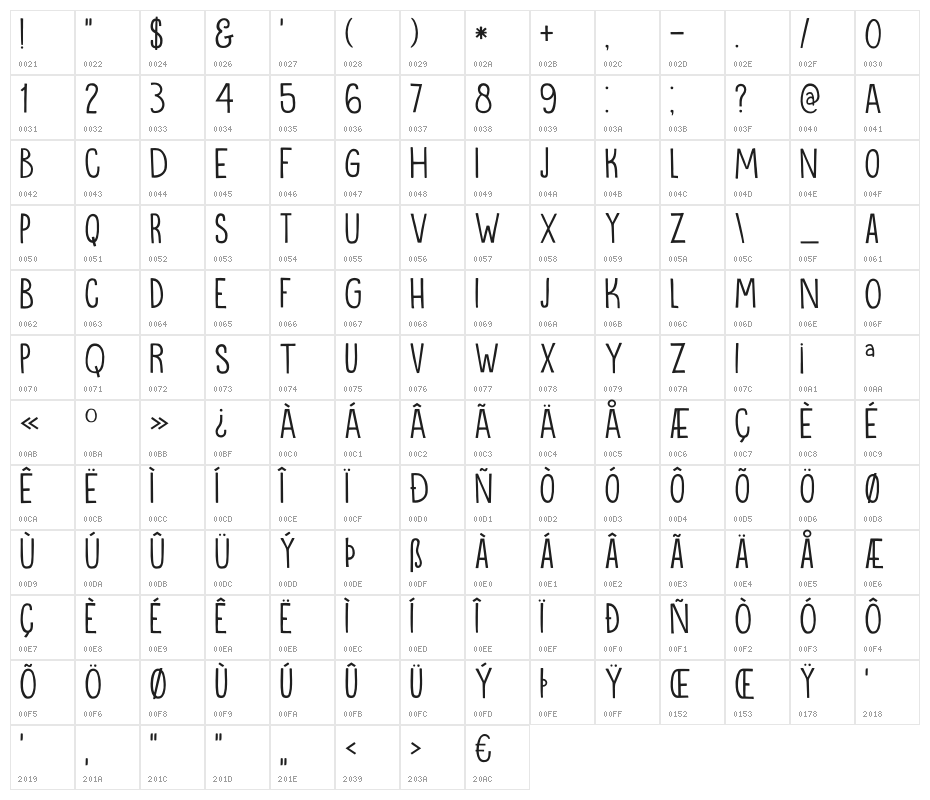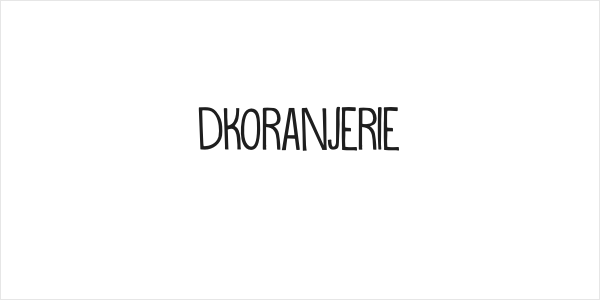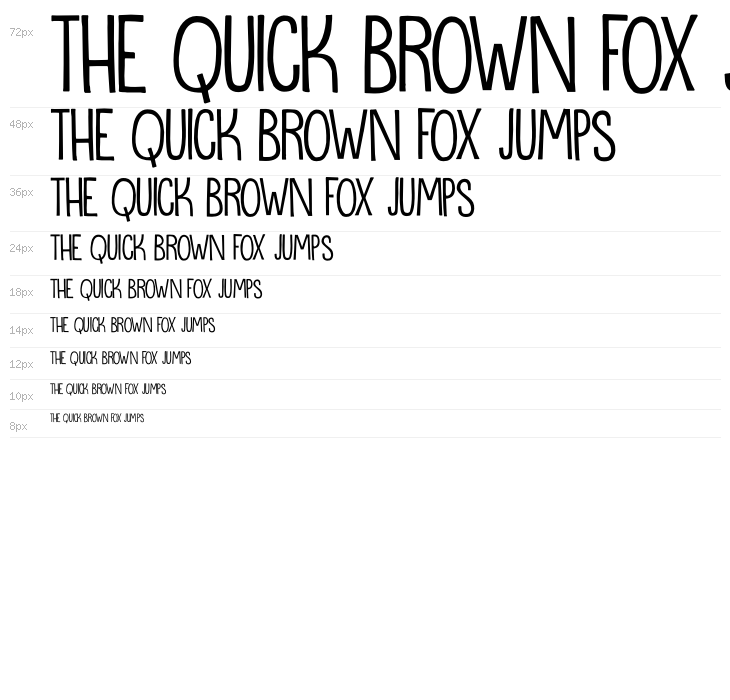
DKOranjerie Font
DKOranjerie Description
This font features a playful and whimsical style with tall, narrow characters that have a hand-drawn appearance. The uppercase letters are elongated and slightly irregular, giving them a unique charm. The lowercase letters maintain a consistent height, complementing the uppercase set. Numbers are bold and rounded, adding to the font's approachable feel. Special characters are creatively designed, fitting seamlessly with the overall aesthetic. The font's informal and friendly look makes it ideal for projects that require a touch of personality and creativity.
| Proposed Projects | Ideal for children's books, greeting cards, playful branding, and creative posters. |